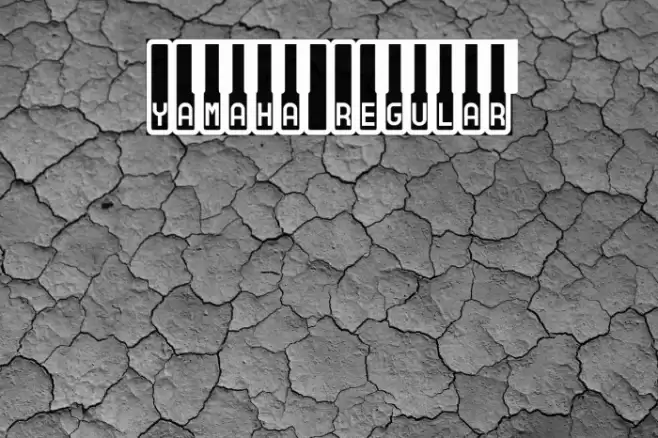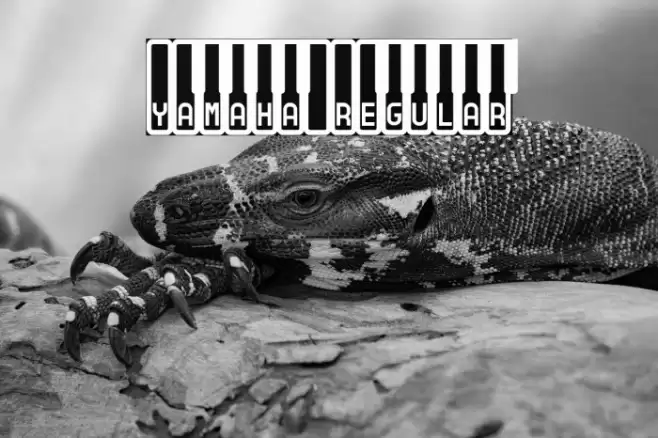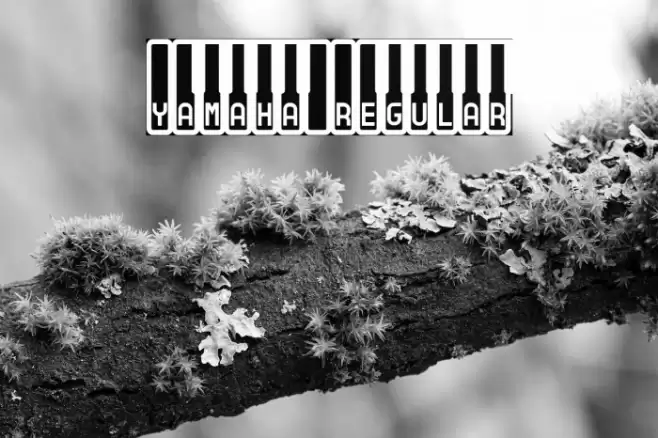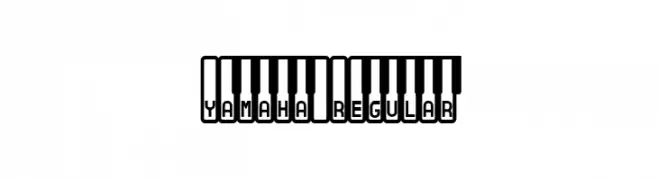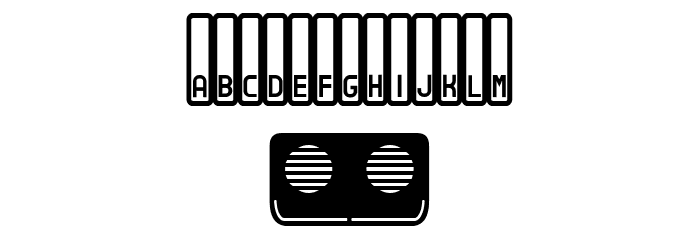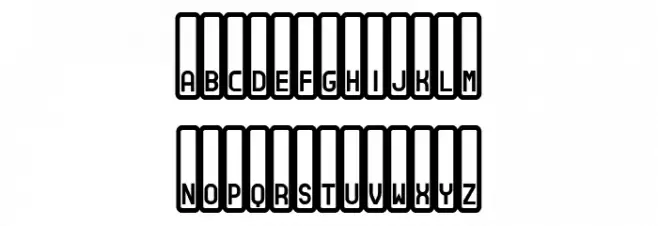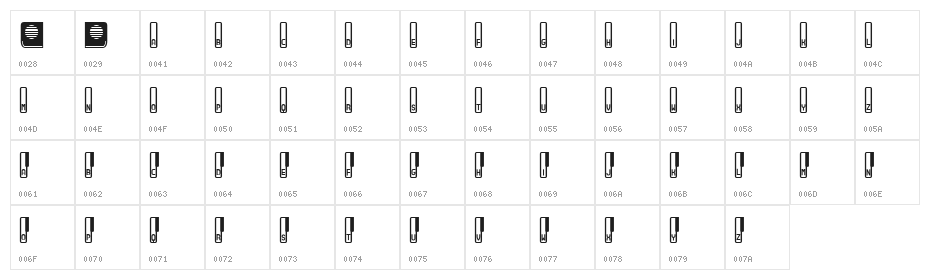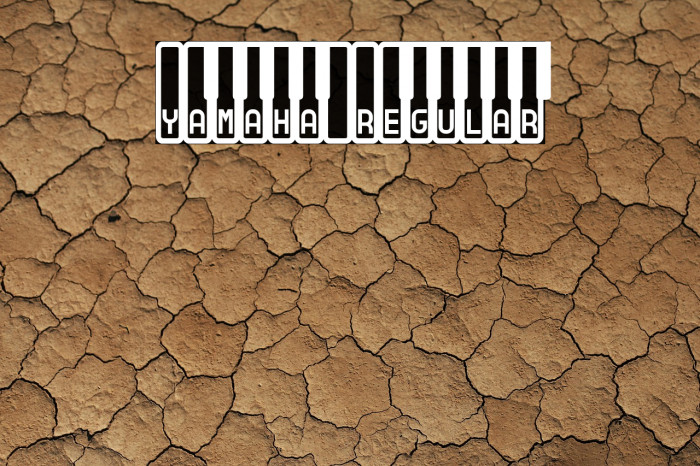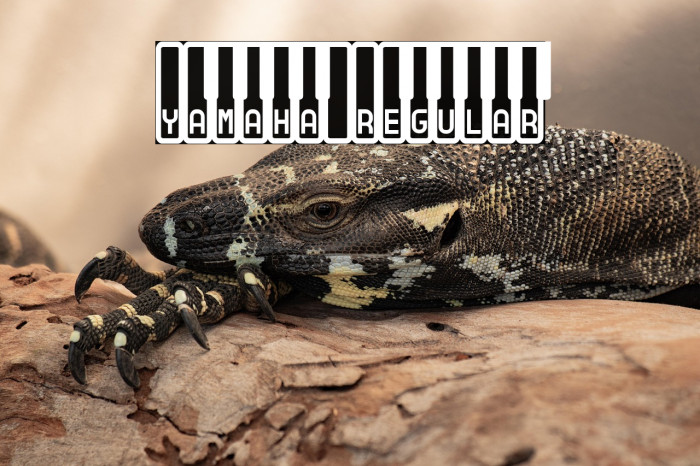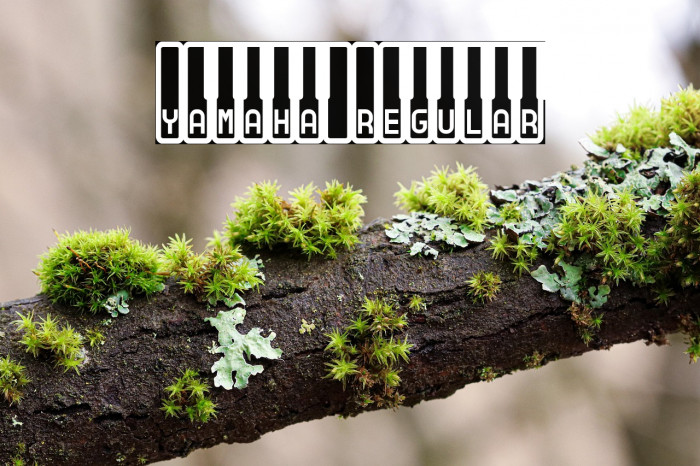
Yamaha Regular Font
Yamaha Regular Description
This font features a unique design where each letter is integrated into a piano key motif, creating a visually striking and thematic appearance. The characters are uppercase and are set within the black and white keys of a piano, emphasizing a musical theme. The letters are bold and clear, making them easily readable despite the decorative background. This design is particularly eye-catching and would appeal to those in the music industry or anyone looking to add a musical flair to their project. The font's playful and creative style makes it stand out, while still maintaining legibility.
A decorative font with letters integrated into piano key motifs, perfect for musical themes from Uncategorized fonts.
- Proposed Projects: Ideal for music-related projects, event posters, album covers, or any creative design requiring a musical theme.
- Contrast: High
- Overall Style: Decorative
- Use Case: Logos, Headlines, Posters